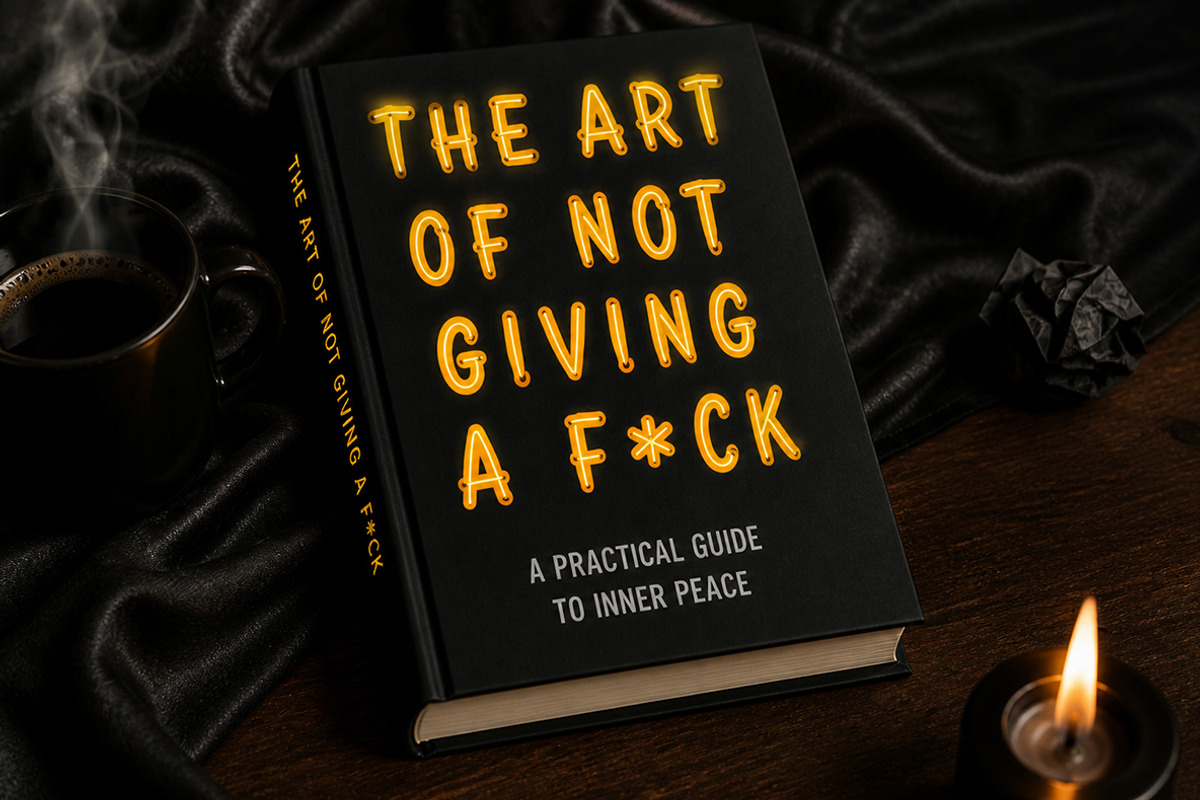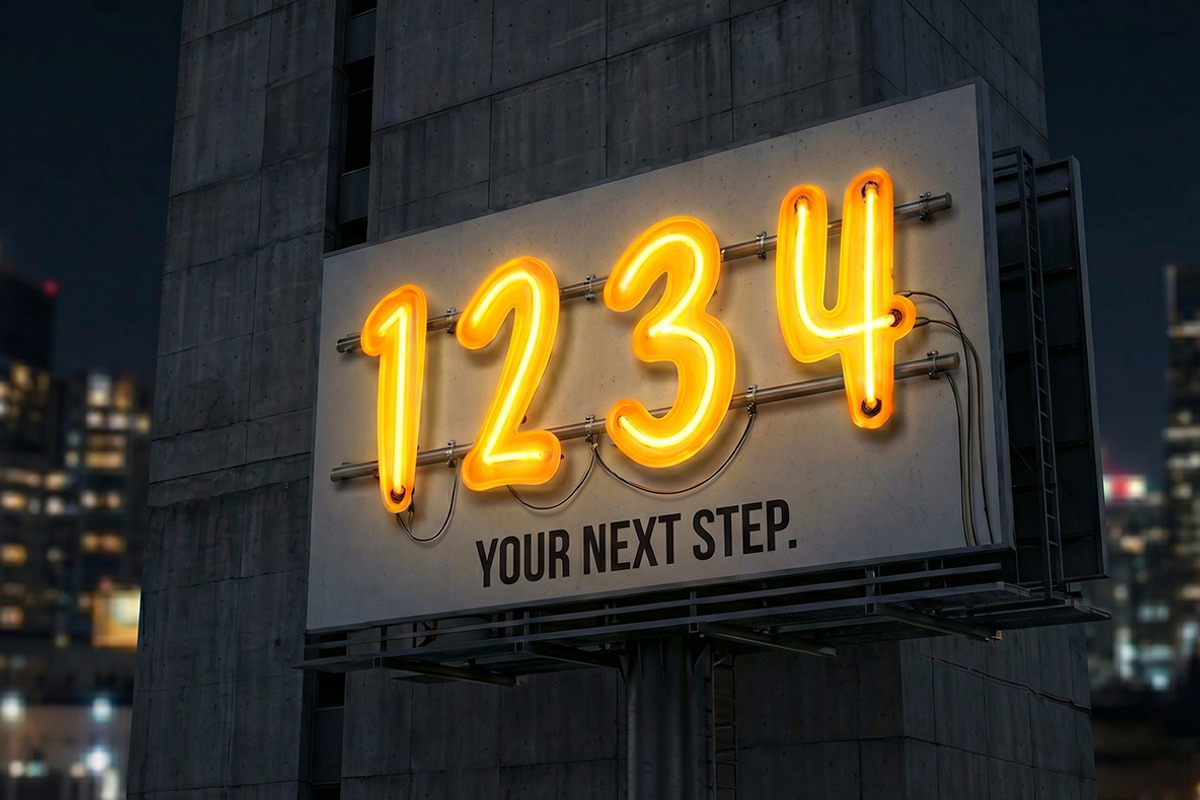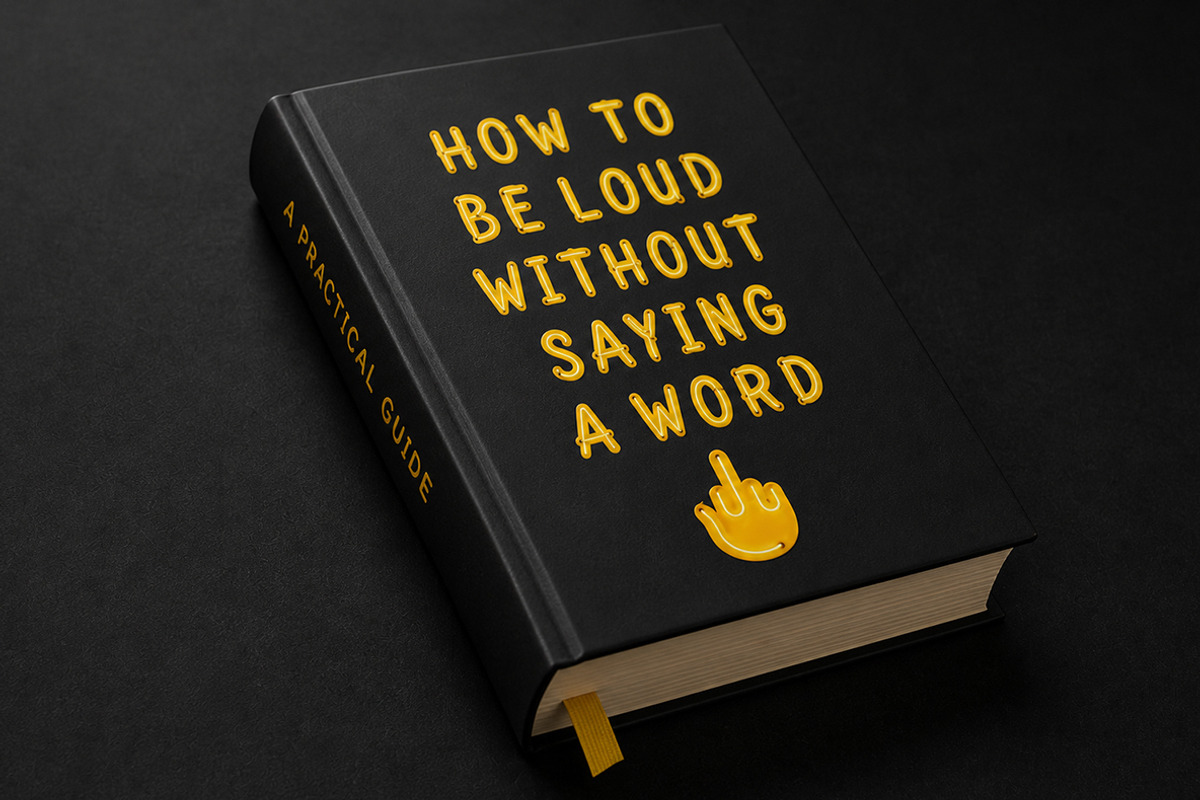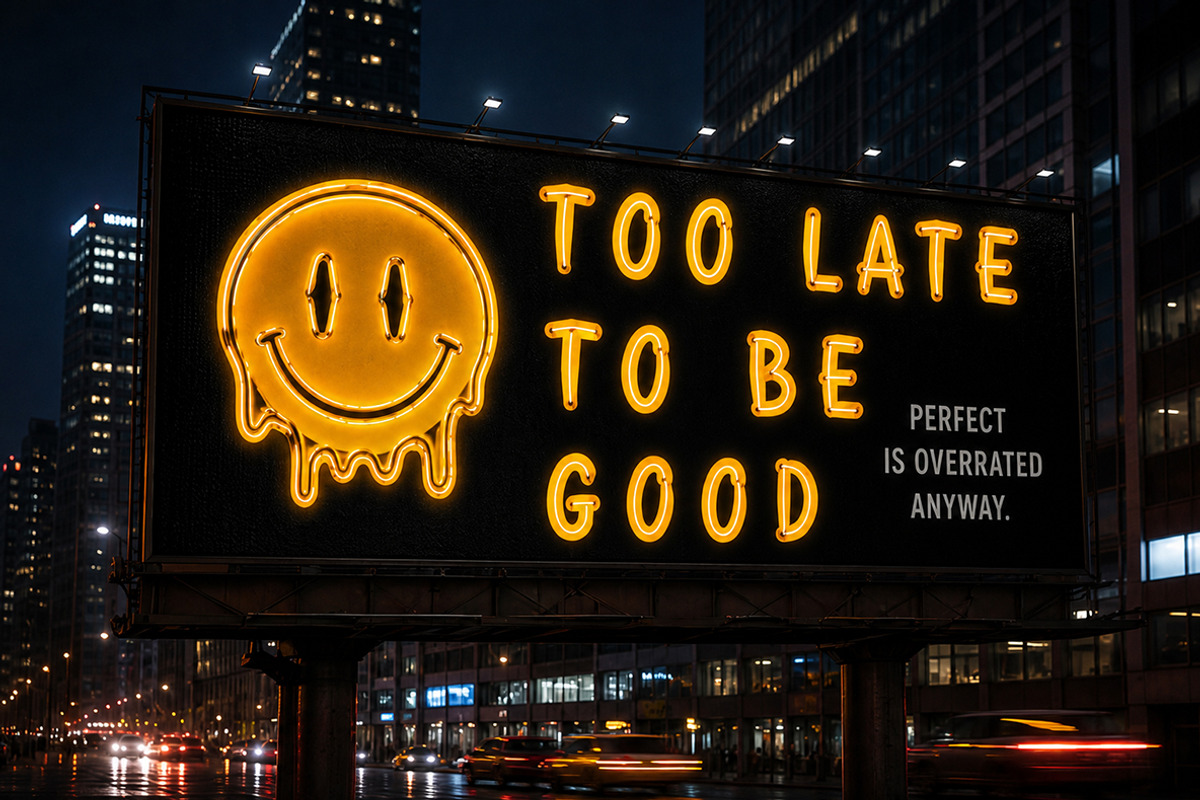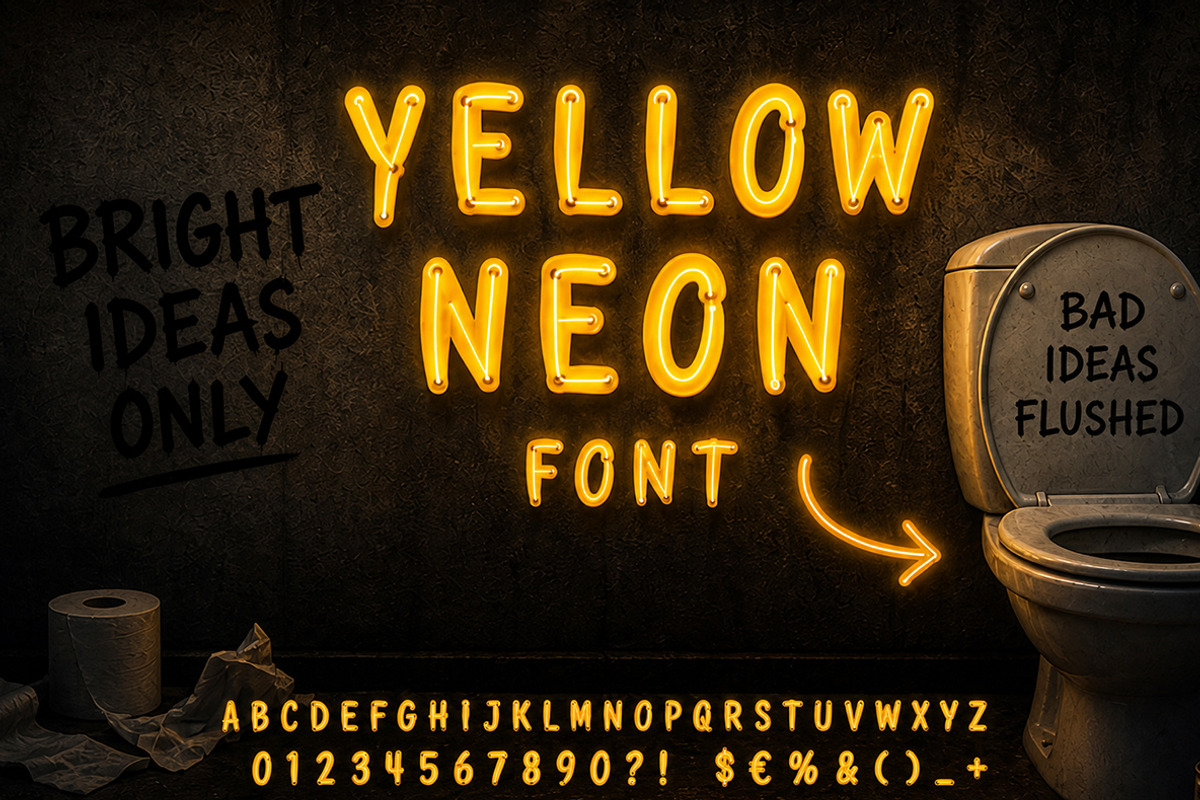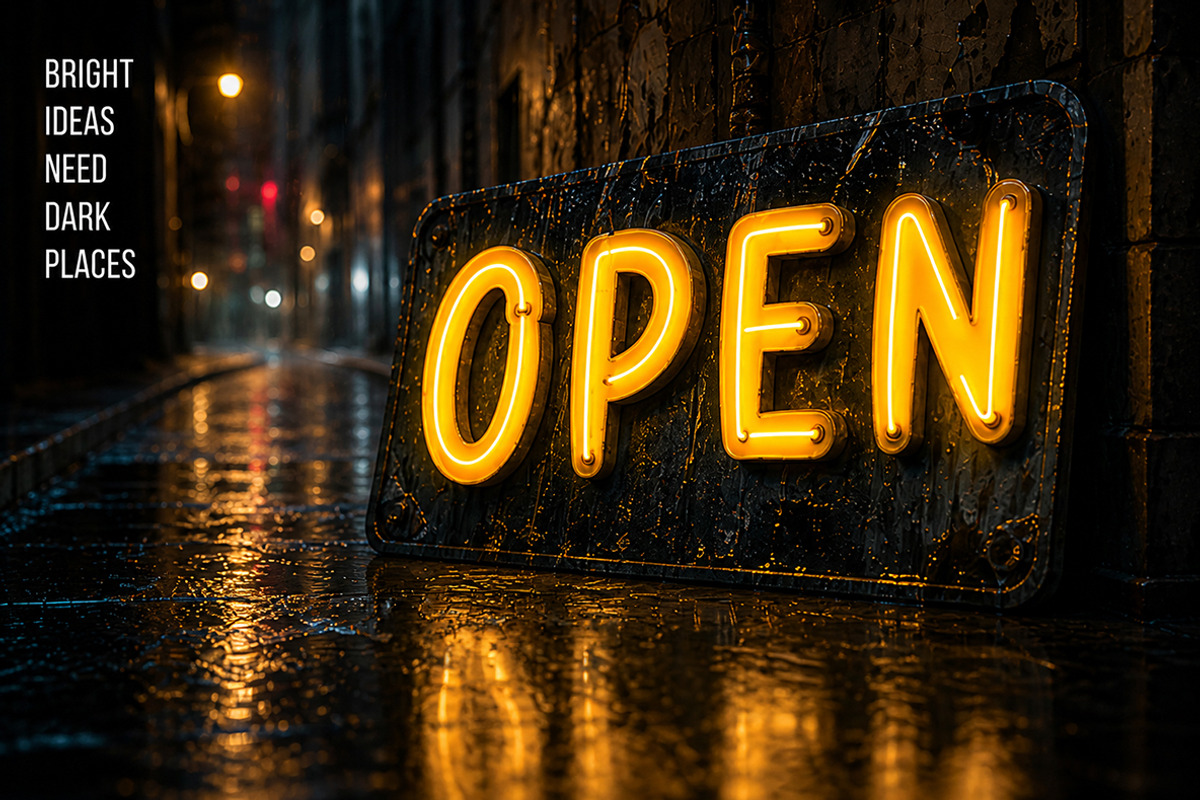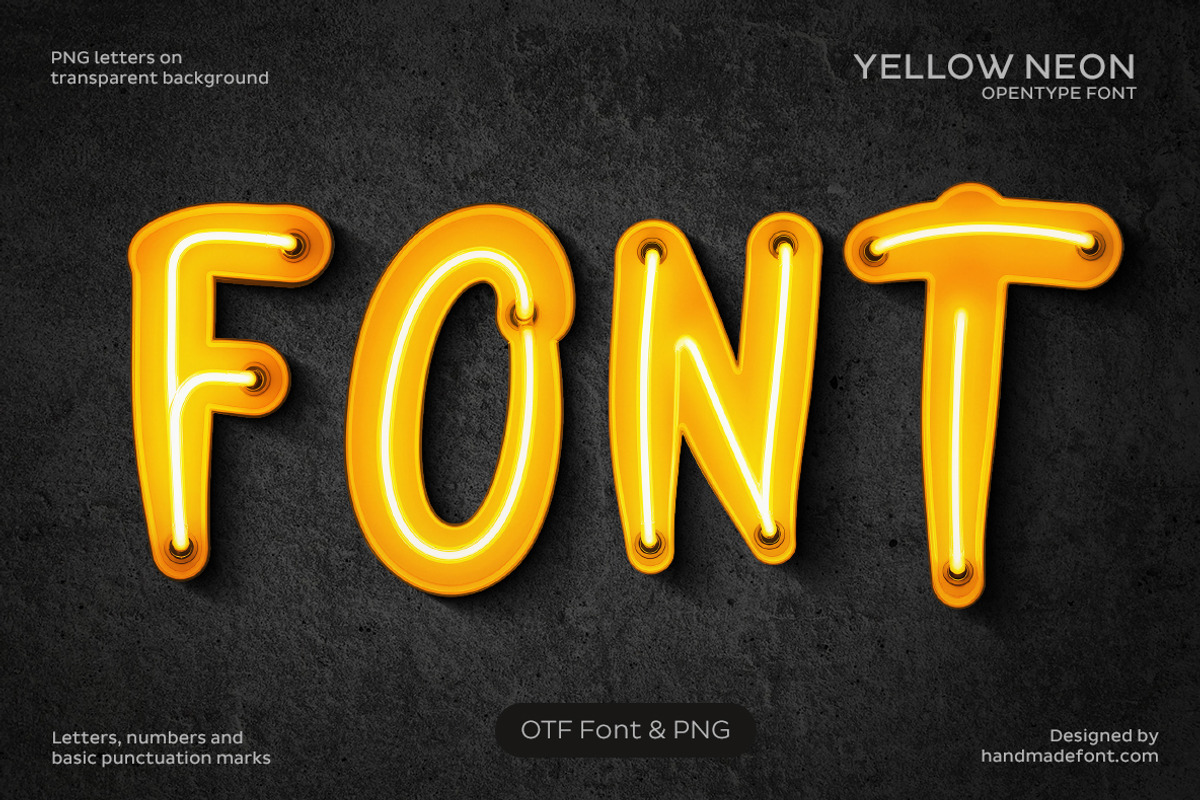
Yellow Neon Font
Yellow Neon Font is a bold, playful typeface inspired by classic glowing signage, bringing a warm electric atmosphere to any design. Each letter is crafted to mimic real neon tubes, with smooth curves, bright highlights, and subtle depth that creates a realistic illuminated effect. The font is delivered as an OTF file, making it easy to install and use across design software. In addition, it includes high-resolution PNG files for every character, each isolated on a transparent background at 5000x5000 pixels, perfect for drag-and-drop compositions, posters, branding, and social media visuals. The character set includes uppercase letters, numbers, and essential punctuation, allowing for versatile creative applications. Whether you are designing retro signage, modern advertising, or eye-catching digital content, Yellow Neon Font adds a vibrant, energetic glow that instantly draws attention and enhances visual storytelling.
- Letters : A B C D E F G H I J K L M N O P Q R S T U V W X Y Z
- Numbers : 0 1 2 3 4 5 6 7 8 9
- Others : ! ? - . ' $ € % & #